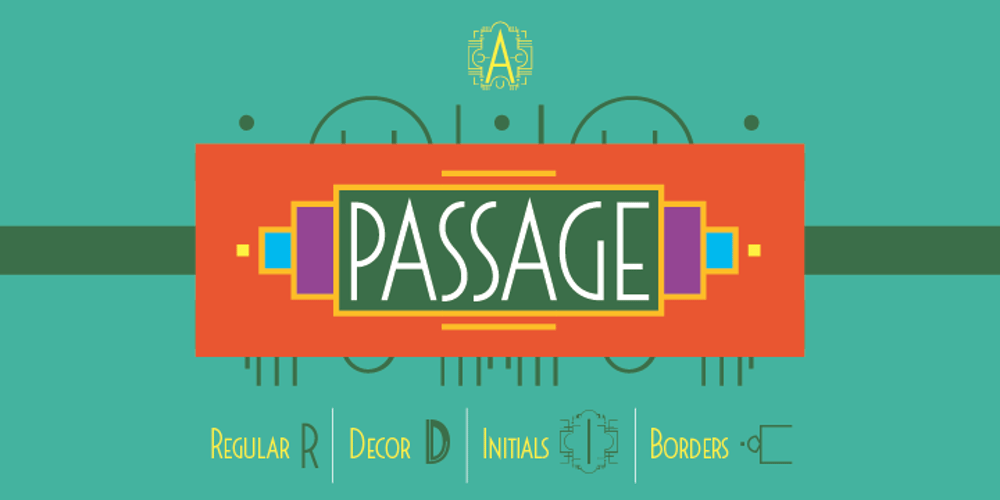
Passage Font Family was designed by Dusan Jelesijevic and published by Tour De Force. Passage contains 4 styles and family package options. Passage is freshly looking decorative Art Deco font family, inspired with modern influences.